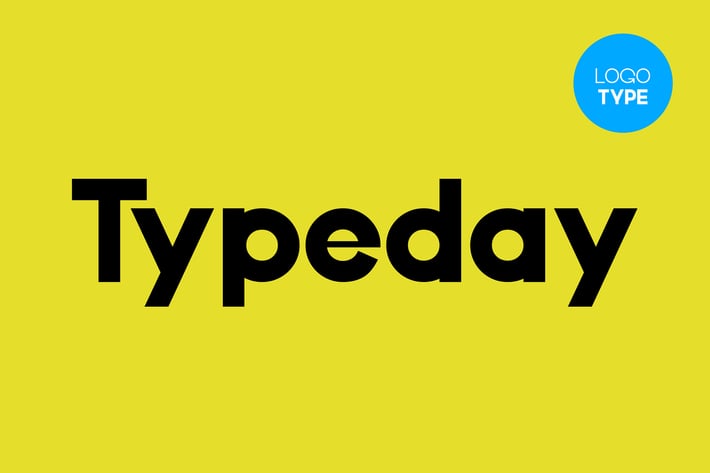
Typeday -Modern Logo Font Family
Typeday Font Family.
Typeday is a multi-purpose font family. It can be used for elegant logos, web design, quotes, magazine covers, wedding cards, invitations, and branding are all possible with this font. Its sharply contrasted lines work well in headlines and large-type projects. Typeday has nine font weights and 350+ glyphs for unlimited styling. It is the perfect choice for any creative project.
- Upper / lowercase glyphs
Multi-language Support
- Basic
- Western European
- Central European
- South-Eastern European
- Pinyin